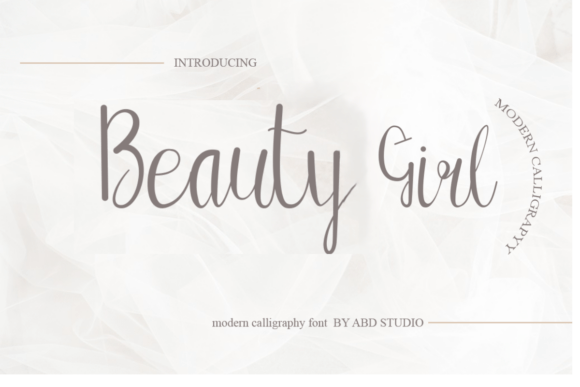
Unleashing the Beauty of Handwritten Charm
As a designer, have you ever stumbled upon the perfect font that makes your creative vision come alive? For me, it’s the moment when the words flow effortlessly, and the design starts to take shape. It’s a feeling of pure joy, and it’s exactly what happens when you work with the Beauty Girl Font.
Beauty Girl is more than just a font – it’s a statement piece that exudes elegance and sophistication. With its delicate, handwritten touch and smooth curves, this font is a dream come true for designers looking to add a touch of romance and whimsy to their projects. Whether you’re working on a wedding invitation, a fashion brand, or a romantic design, Beauty Girl Font is the perfect companion to help you create something truly special.
As a valuable addition to any designer’s toolkit, Beauty Girl Font offers a level of versatility and style that’s hard to find. Its modern calligraphy style adds a soft, stylish charm to any creative work, making it a must-have for designers who want to make a lasting impression.
Key Features of “Beauty Girl Font”
- Unique Characteristics: The font features a unique blend of elegant and playful elements, making it perfect for beauty and fashion-related designs.
- Font Style: Script, Calligraphy
Beauty Girl Font Review
Overall, I’d say the Beauty Girl Font is a sweet and feminine font that could add a touch of elegance to any design project. ✨ The font’s playful and whimsical feel makes it perfect for creating a romantic or vintage-inspired look. I particularly like how it can be used for headers or titles, as it adds a nice pop of personality to the design.
Here are some of the things I like about the Beauty Girl Font: ✨
- Unique and feminine style
- Perfect for creating a vintage or romantic feel
- Can be used for headers or titles for added personality
- Works well for design projects that require a touch of elegance
- May not be suitable for formal or corporate designs
- Can be difficult to read at smaller font sizes
- May not be as versatile as other fonts in terms of pairing with different styles
Overall, I think the Beauty Girl Font is a lovely addition to any designer’s toolkit. While it may not be suitable for every project, it’s a great choice for designs that require a touch of elegance and femininity.
Tips for Getting the Most Out of Beauty Girl Font
For the best results, use Beauty Girl Font in conjunction with other feminine and elegant design elements.
Experiment with different font sizes, colors, and styles to create a unique and eye-catching design.
Consider pairing Beauty Girl Font with other cursive or script fonts for a romantic and whimsical look.
Beauty Girl Font is perfect for:
- Wedding invitations and station
Alternatives to Beauty Girl Font
Playfair Display is a luxurious and elegant serif font, perfect for creating high-end designs and adding a touch of sophistication. It is ideal for use in magazines, advertising, and luxury brands. Playfair Display is more formal and traditional compared to Beauty Girl Font, which is more playful and feminine.
Lato is a modern sans-serif font with a friendly and approachable feel. It is highly versatile and can be used for a wide range of designs, from corporate identities to editorial layouts. Lato is more minimalist and clean compared to Beauty Girl Font, which has a more ornate and decorative feel.
Great Vibes is a beautiful script font with a vintage and romantic feel. It is perfect for creating elegant and sophisticated designs, such as wedding invitations, menus, and advertising materials. Great Vibes is more elegant and refined compared to Beauty Girl Font, which is more playful and whimsical.